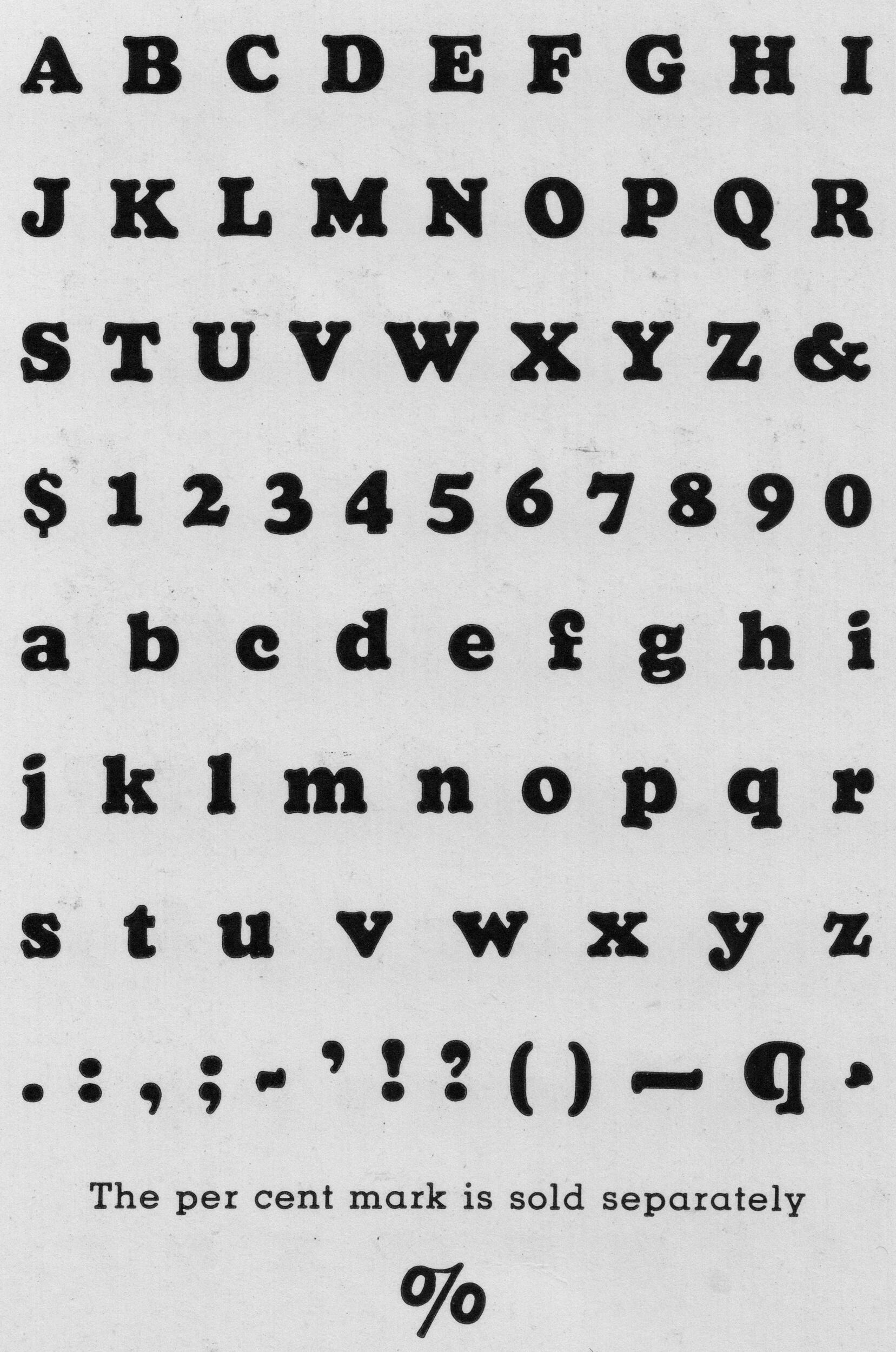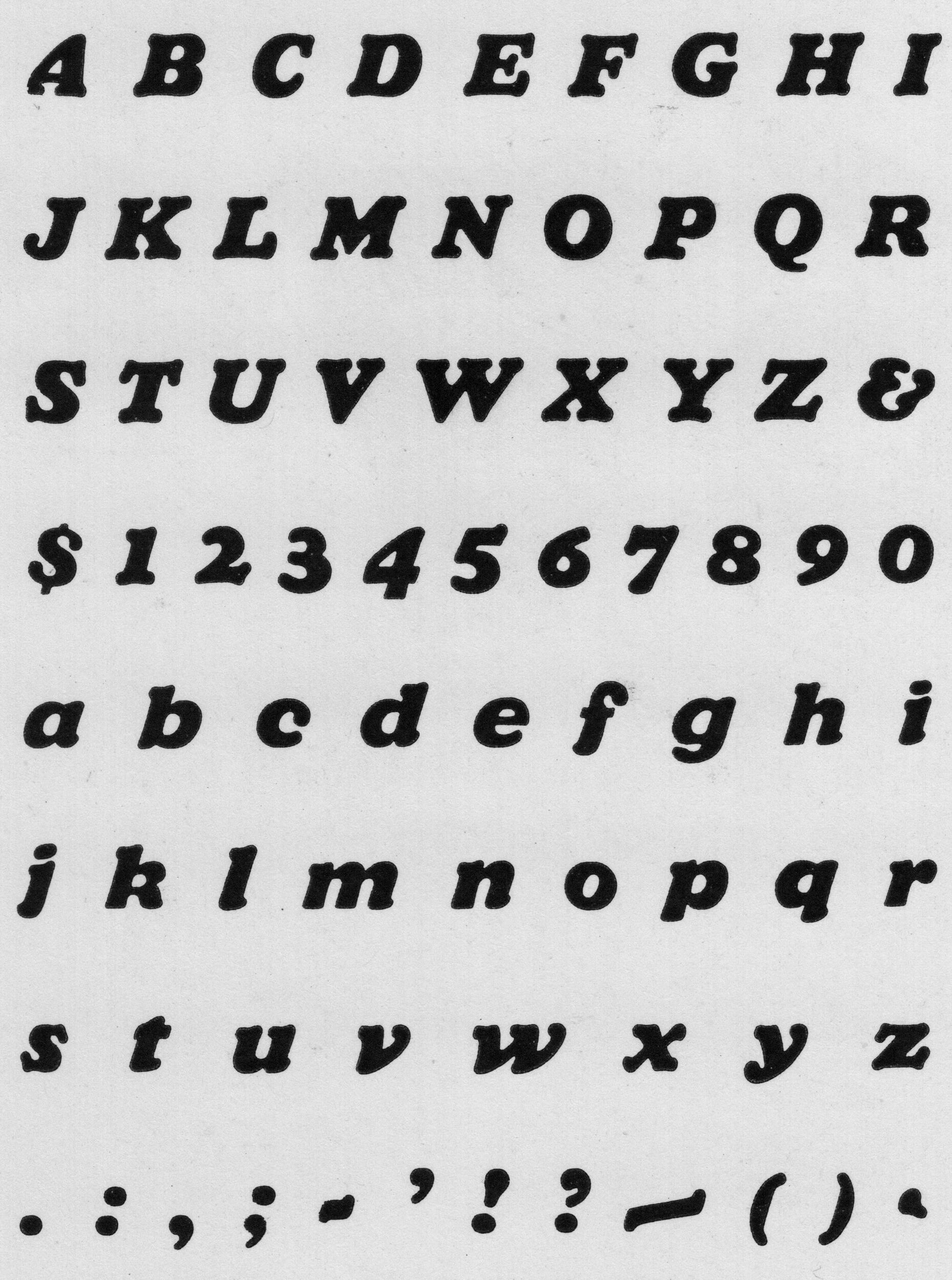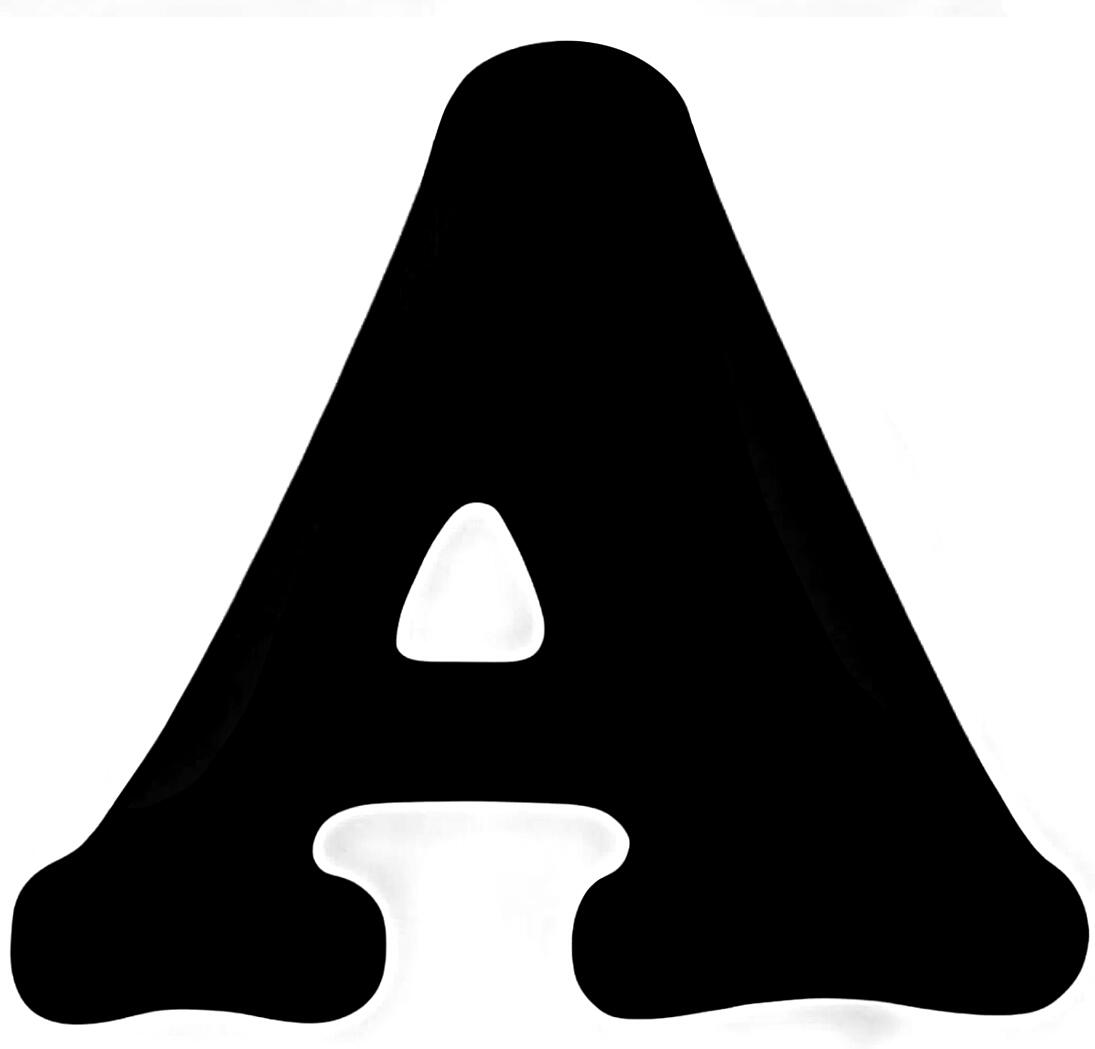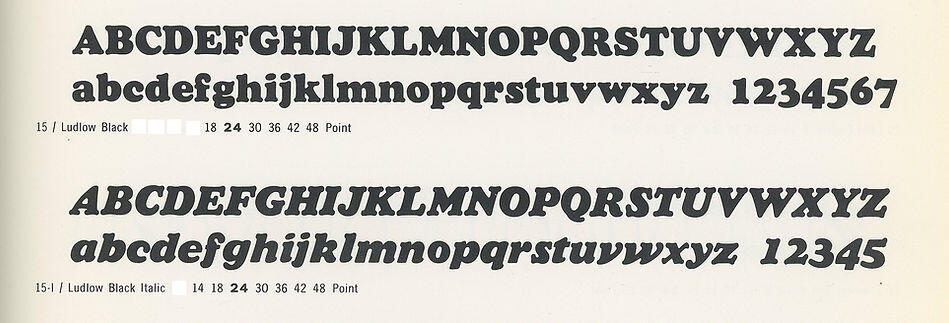
Ludlow Black, Ludlow Black Italic samples
I'm trying to complete a digitization of Ludlow Black and Ludlow Black Italic. I've got Ludlow Black Italic completed in Fontlab but I'm having a hard time collecting decent sized samples of Ludlow Black. I'm half way through. Does anyone know of legible samples? Otherwise I will keep slogging away. Everyone is welcome to the finished product when I'm done. (See my sample 'A' below)
That helps tremendously. I know Ludlow Black isn't a thing of beauty to some, but it's been forgotten and I have a soft spot for it.